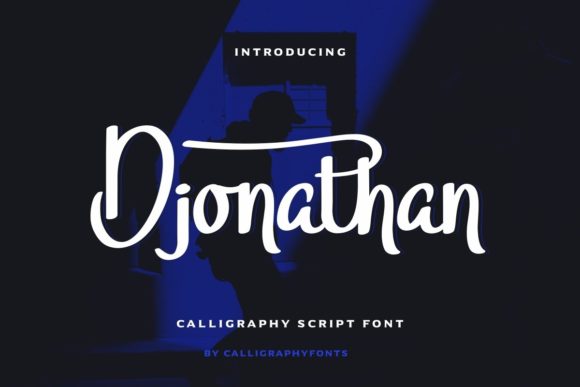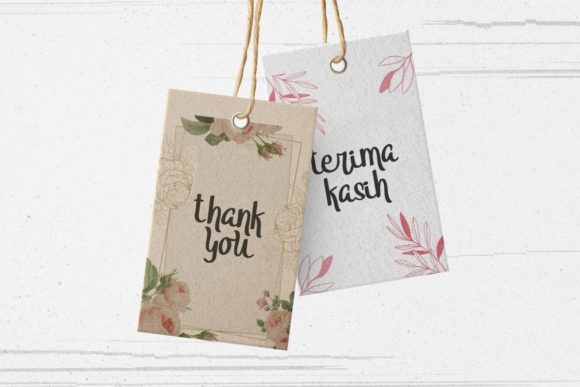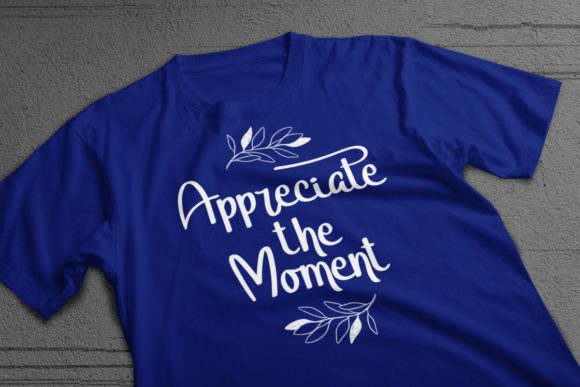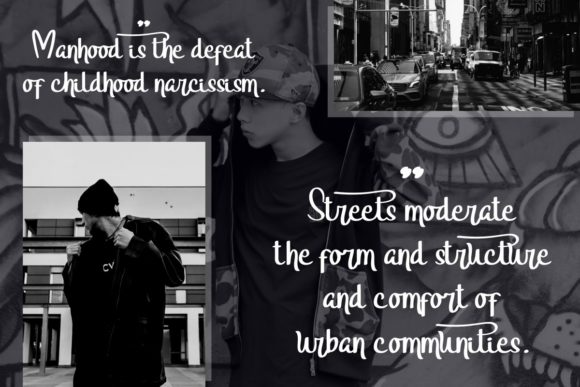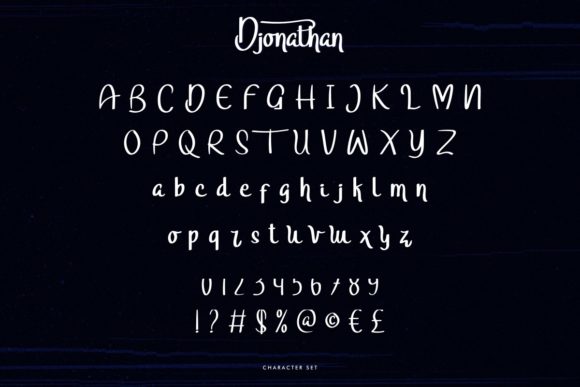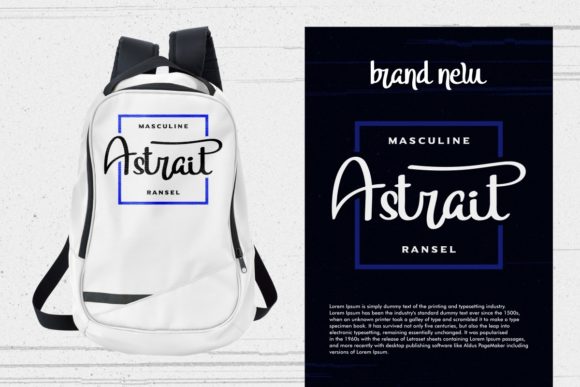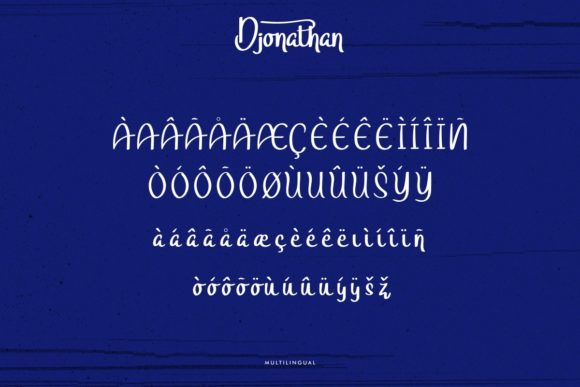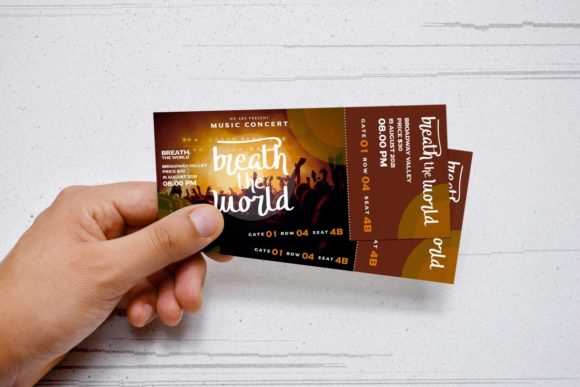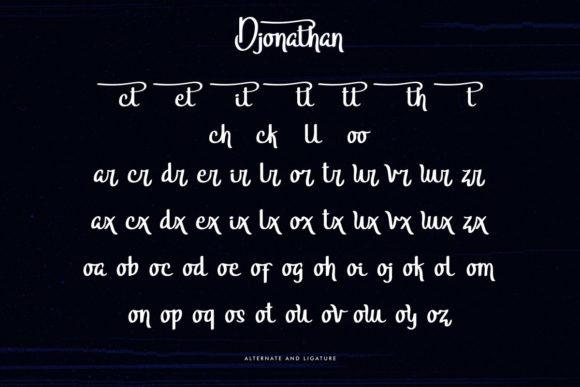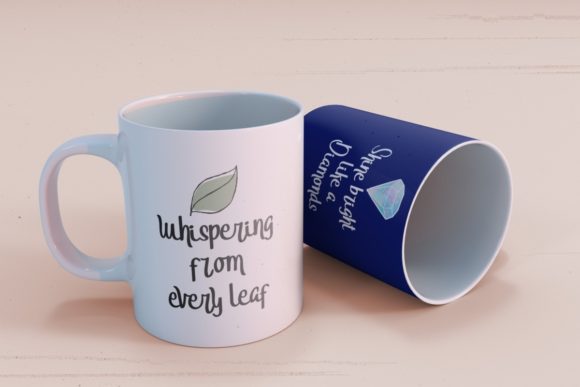
Djonathan Font
About Djonathan Font
Djonathan is an enchanting handwritten font that exudes elegance and charm. This versatile script font offers a wide spectrum of applications, making it suitable for various design projects. From greeting cards to headlines, Djonathan adds a romantic and whimsical touch to your creations. Its graceful letterforms and flowing lines create a sense of beauty and sophistication. What’s more, Djonathan is PUA encoded, allowing you to easily access all the glyphs and swashes it offers, providing you with seamless customization options. Embrace this enchanting font and let it bring a touch of magic to your next design project, as you create stunning and visually captivating designs that leave a lasting impression.